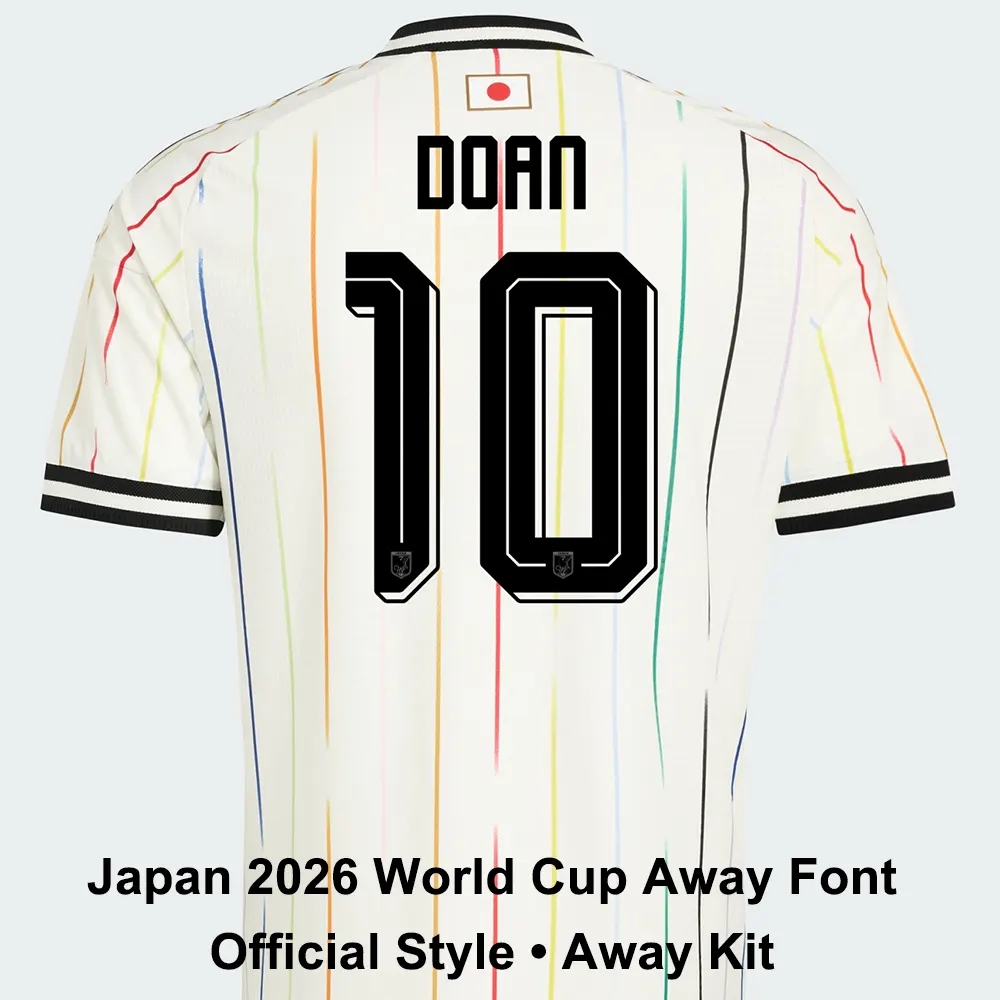
🇯🇵 Japan 2026 World Cup Away Font: Complete Vector File Pack
Elevate your custom Japan national team gear with the official-style Japan 2026 World Cup away kit font — the exact bold, geometric typeface used on Japan’s 2026 away jersey, including the iconic #10 Doan print. This all-in-one vector pack is designed for football fans, designers, and creators, with every file format you need for professional-quality custom work.
🎨 Font Features
- Official 2026 Away Kit Style: Matches the bold, blocky typography on Japan’s 2026 World Cup away jersey
- Full Character Set: Complete uppercase A-Z, numbers 0-9, accented characters, and punctuation
- JFA Logo Integration: Built-in Japan Football Association (JFA) emblem for authentic jersey printing